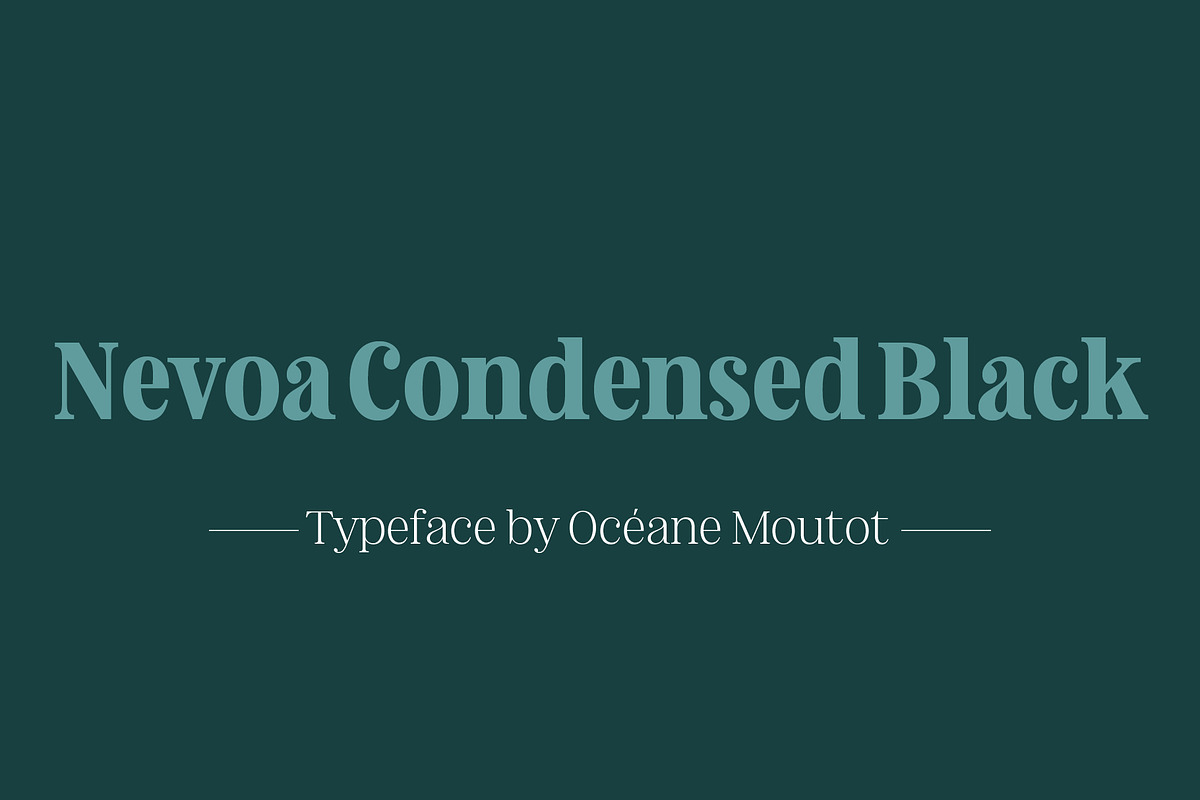
Nevoa Condensed Black
This is just the Condensed Black style, if you want the whole family, check the other page Nevoa is a typeface inspired by the vernacular calligraphy from the streets of Brazil. While walking in the streets of some small towns, I felt so inspired by those rounded letters painted on the walls. That is what inspired Nevoa. Nevoa is a soft and smooth serif typeface, with dynamic curves. It is available in Condensed, Semi Condensed, Regular, Semi Extended and Extended to adapt to various uses, such as visual identity, magazine, branding, ...